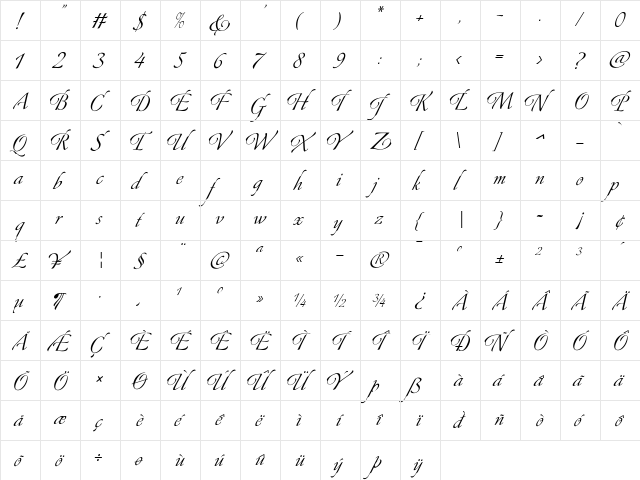
Canette-Regular Font Preview
Canette-Regular Regular
Canette-Regular Font Details
| Foundry | Robbie de Villiers |
| Designer | Robbie de Villiers |
Design Context for Canette-Regular Typeface
Canette-Regular takes a measured approach to typography — its balanced proportions and neutral character make it a reliable workhorse for both digital and print work.